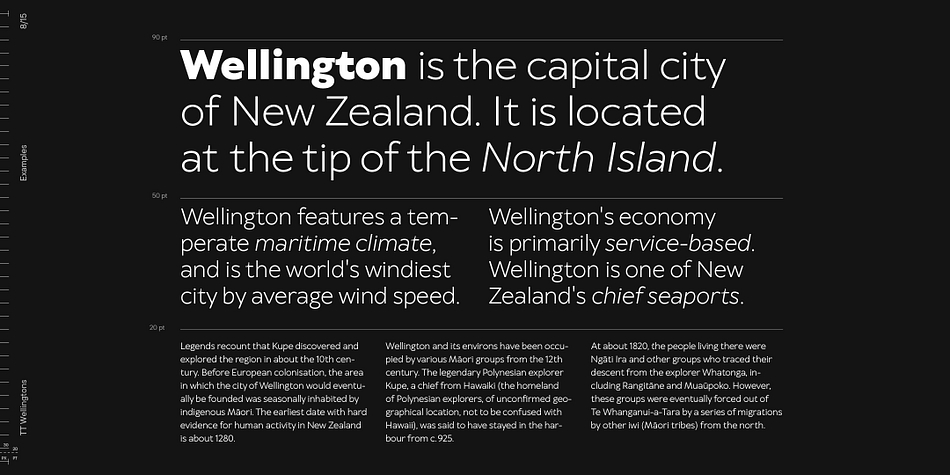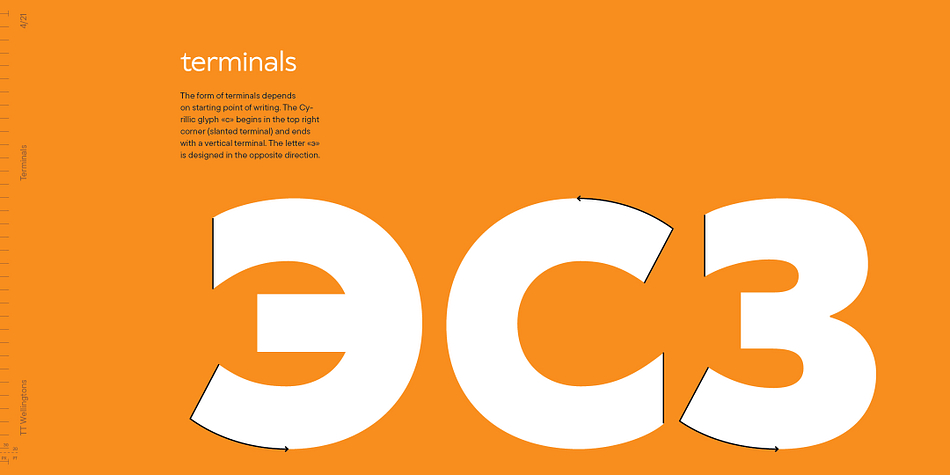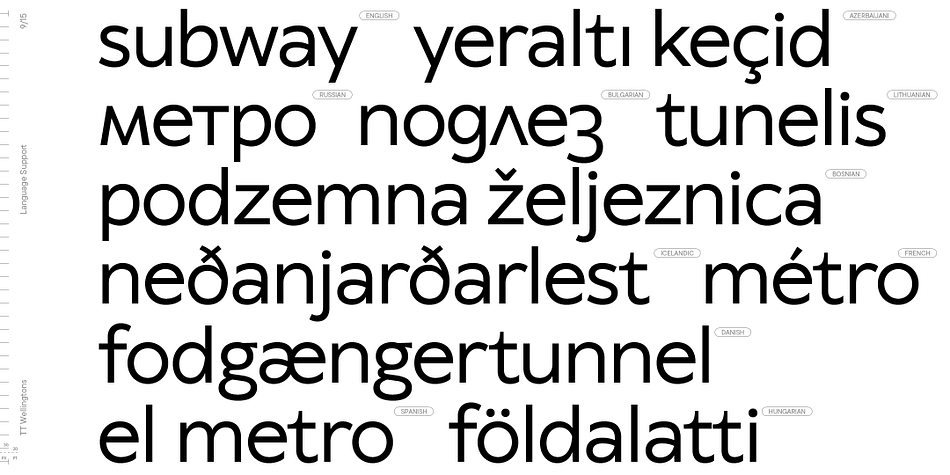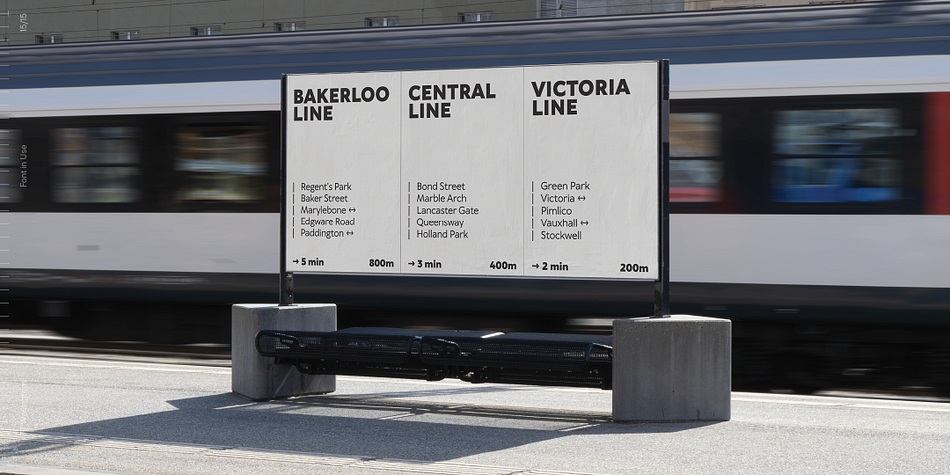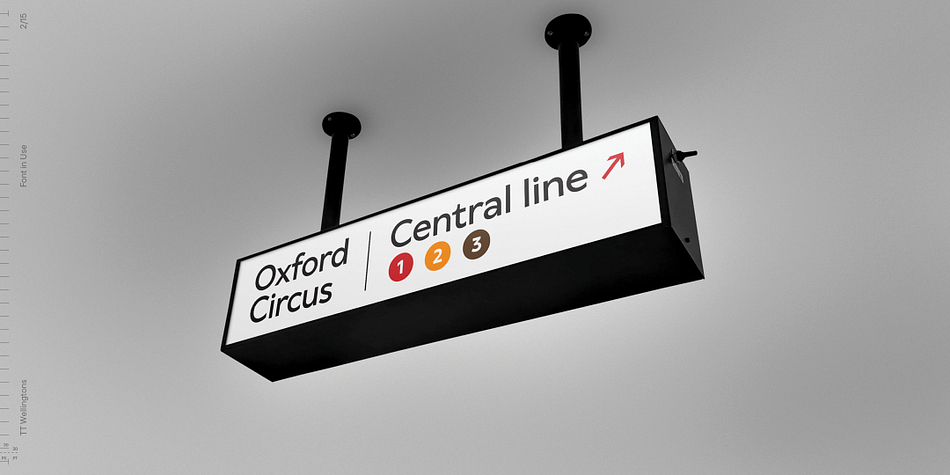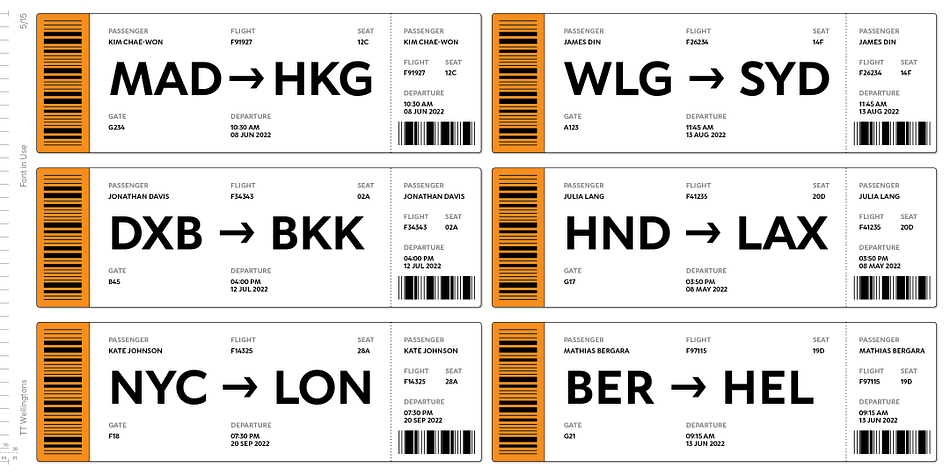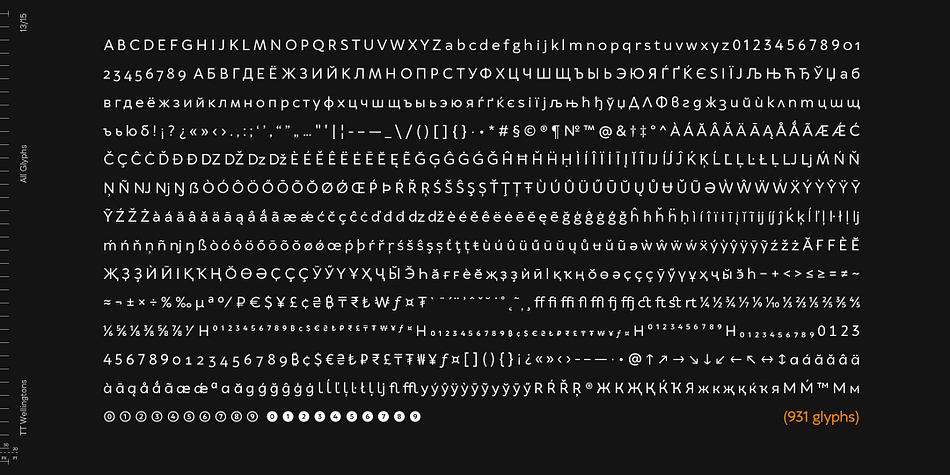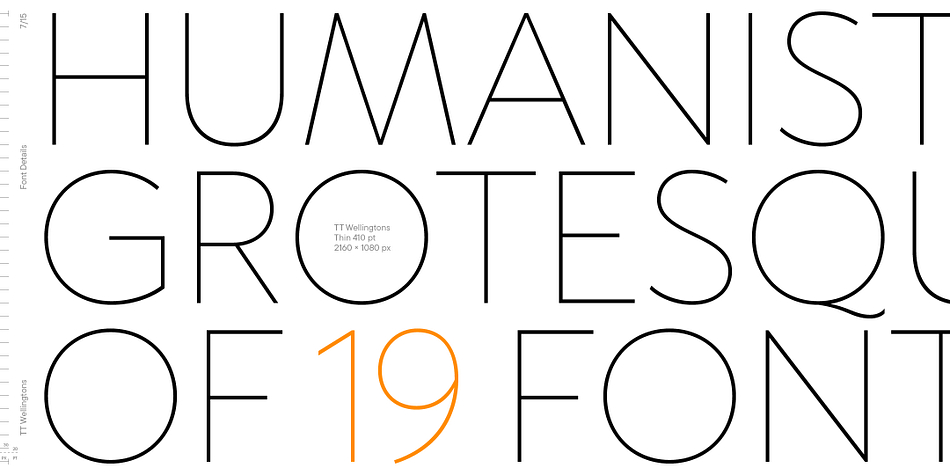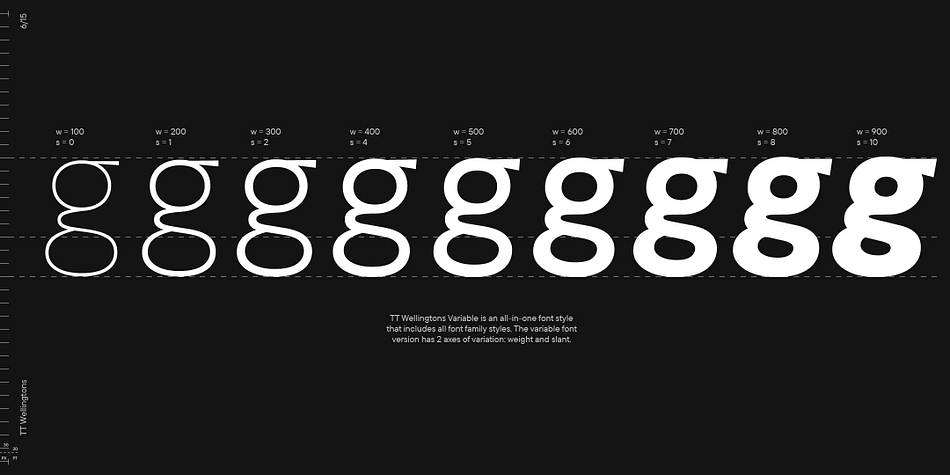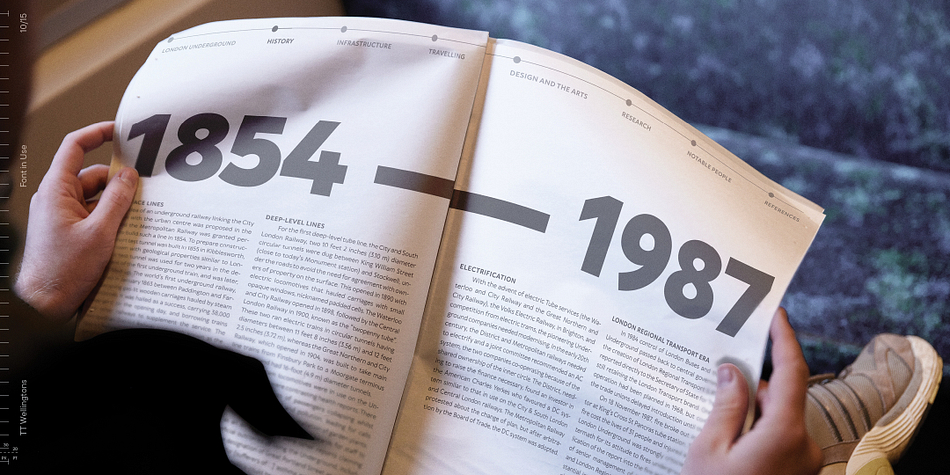
Designed by Ivan Gladkikh, TT Wellingtons is a sans serif font family. This typeface has eighteen styles and was published by Typetype.
TT Wellingtons is an attempt to combine the style of English humanist sans-serifs of the early 20th century with the requirements for modern geometric grotesques. Our main task was to preserve the feeling of hand-written origin of the letters while simplifying their design and making it as functional as possible.
One can find many artifacts typical of the traditional technique of poster pen movement on paper in TT Wellingtons. These are the asymmetric sections of the upper and lower corners of the letters “C” or “Э” or the smooth elements of the strokes connection, which are clearly visible in lowercase Latin characters, for example, in the letter “n”. The large size of lowercase characters’ height and the geometric manner of circle construction — they are pillow-shaped in TT Wellingtons — can be classified as modern type peculiarities. Apart from all listed above, the typeface features a set of stylistic alternates that changes the shape of style-forming characters to a purely geometric one.
TT Wellingtons consists of 9 weights and 9 true Italics. By default, the standard set uses oldstyle figures, but if necessary, you can easily turn the lining figures on. The typeface includes more than 20 ligatures, stylistic alternates and other useful features. The full list of OpenType features used in TT Wellingtons is: ordn, sups, sinf, numr, dnom, lnum, onum, tnum, pnum, liga, dlig, salt, ss01, ss02, ss03, ss04, case, frac.